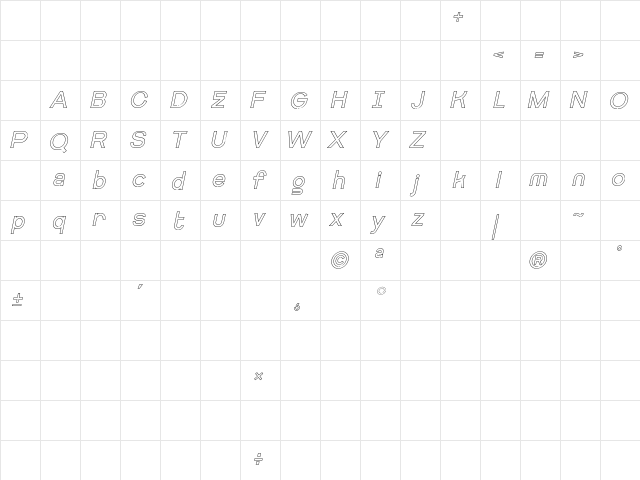
Getboreg Hollow is a composed and adaptable typeface that performs quietly and consistently across a wide range of design contexts. The slanted form adds forward momentum and visual energy.
Pro Tip: Use Getboreg Hollow for emphasis, pull quotes, and subheadings where its slanted energy can add rhythm to the layout.